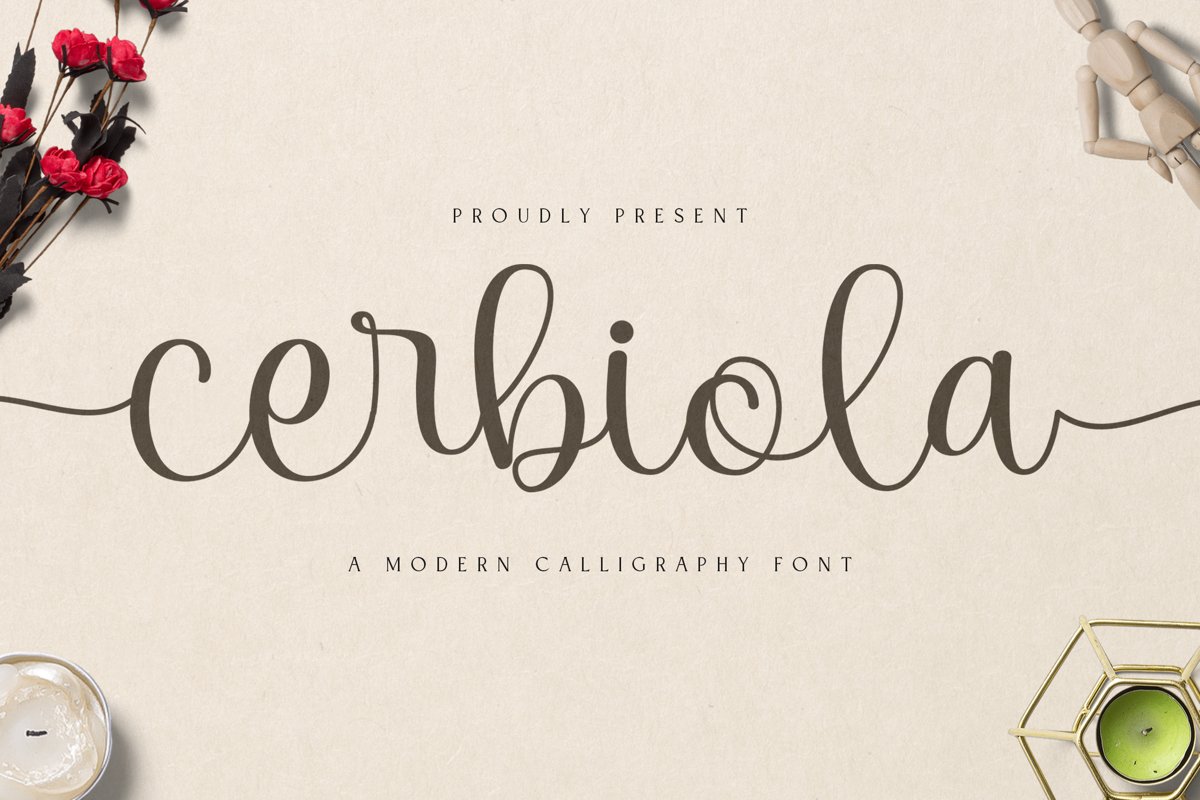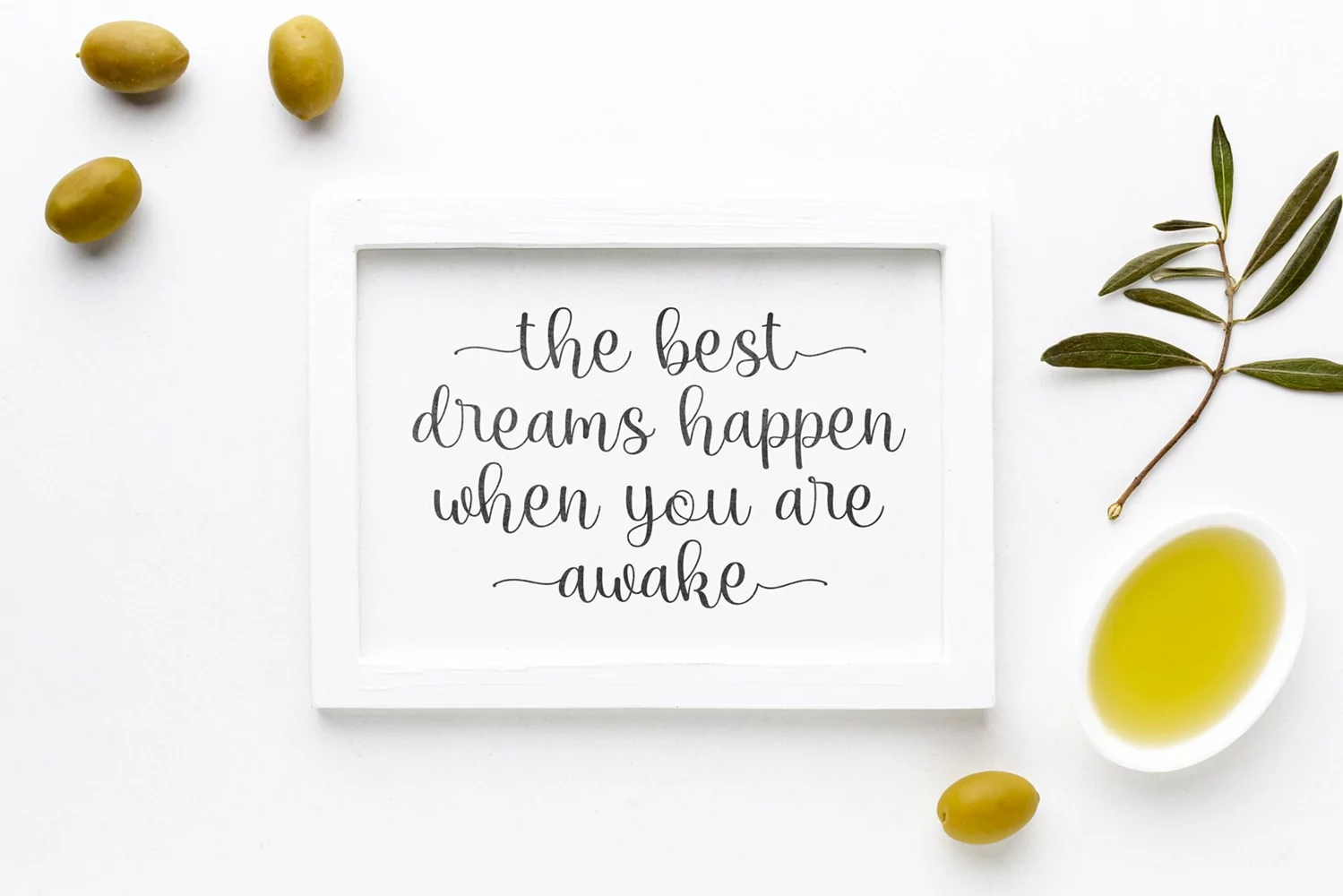
Cerbiola is a modern calligraphy typeface. Perfect for display, quotes, posters, logo, logotype, floral, florist needs, business card, wedding needs, print, t-shirt, pin, mug, merchandise, packaging, header, title, and many more.